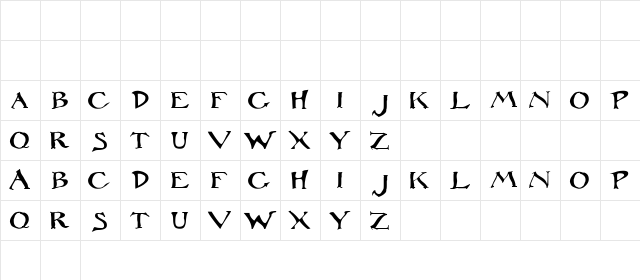
Arthur Regular
Arthur Family
Complete Arthur Regular glyph index. Displaying only characters natively supported by Arthur Regular font.
Design Context for Arthur
Arthur is a composed and adaptable typeface that performs quietly and consistently across a wide range of design contexts.